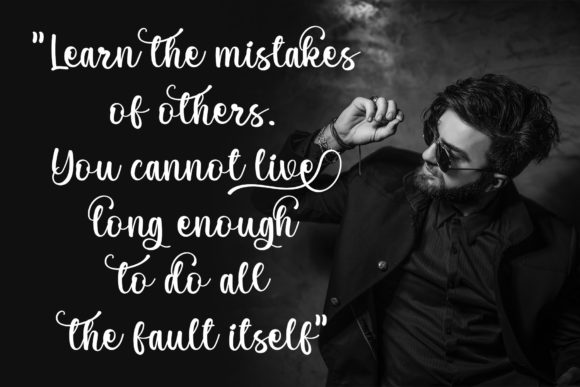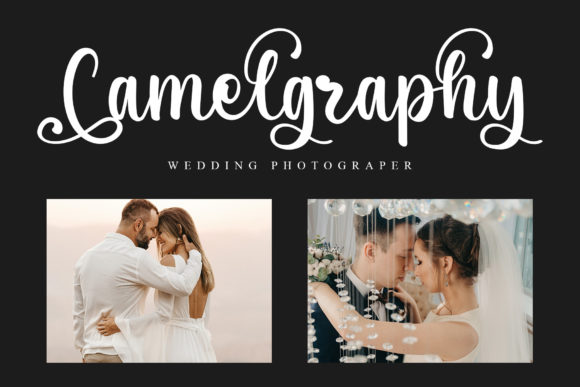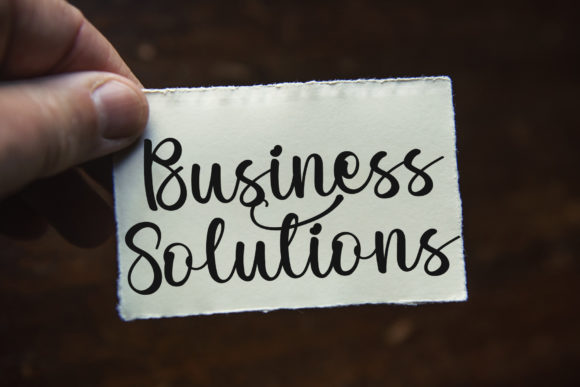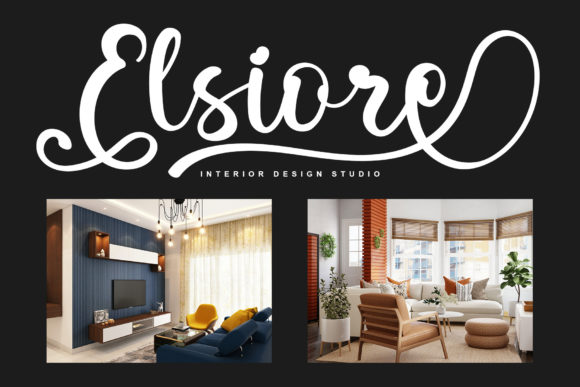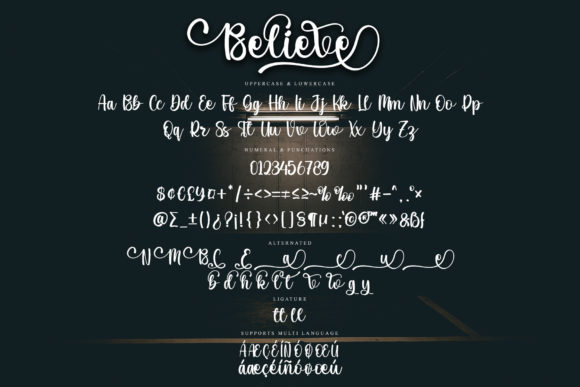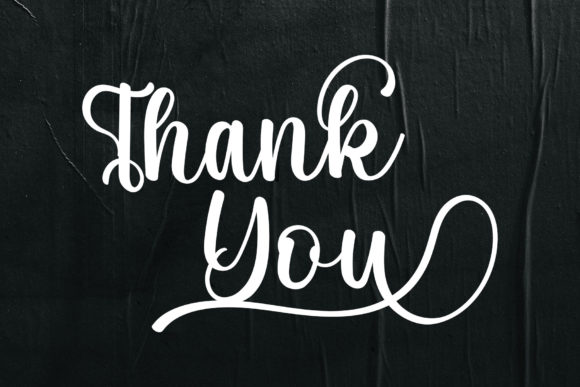
Believe Font
“Believe” is a stunning and intricately designed script font that radiates romance and charm. This font is the perfect addition to your collection, bringing a delightful and lovely touch to your love letters, wedding invitations, or any other design project you hold dear. With its intricate details and captivating style, “Believe” is sure to leave a lasting impression.
The font’s romantic and lovely appearance makes it an ideal choice for expressing heartfelt messages and creating designs that evoke a sense of warmth and affection. Whether you’re crafting a love letter, designing wedding invitations, or exploring various creative ideas, “Believe” is poised to enhance the beauty of your projects.
What sets “Believe” apart is its PUA encoding, which simplifies access to the font’s extensive set of glyphs and swashes. This feature allows for seamless integration of decorative elements, enabling you to customize and embellish your designs effortlessly. The font’s versatility and ease of use make it a valuable asset for designers seeking to add a touch of sophistication to their creations.
Consider incorporating “Believe” into your design toolkit for projects that demand a romantic and detailed script font. Whether you’re working on wedding stationery, love-themed graphics, or any design that calls for an elegant touch, “Believe” is crafted to elevate your creative expressions and leave a lasting impression on your audience.